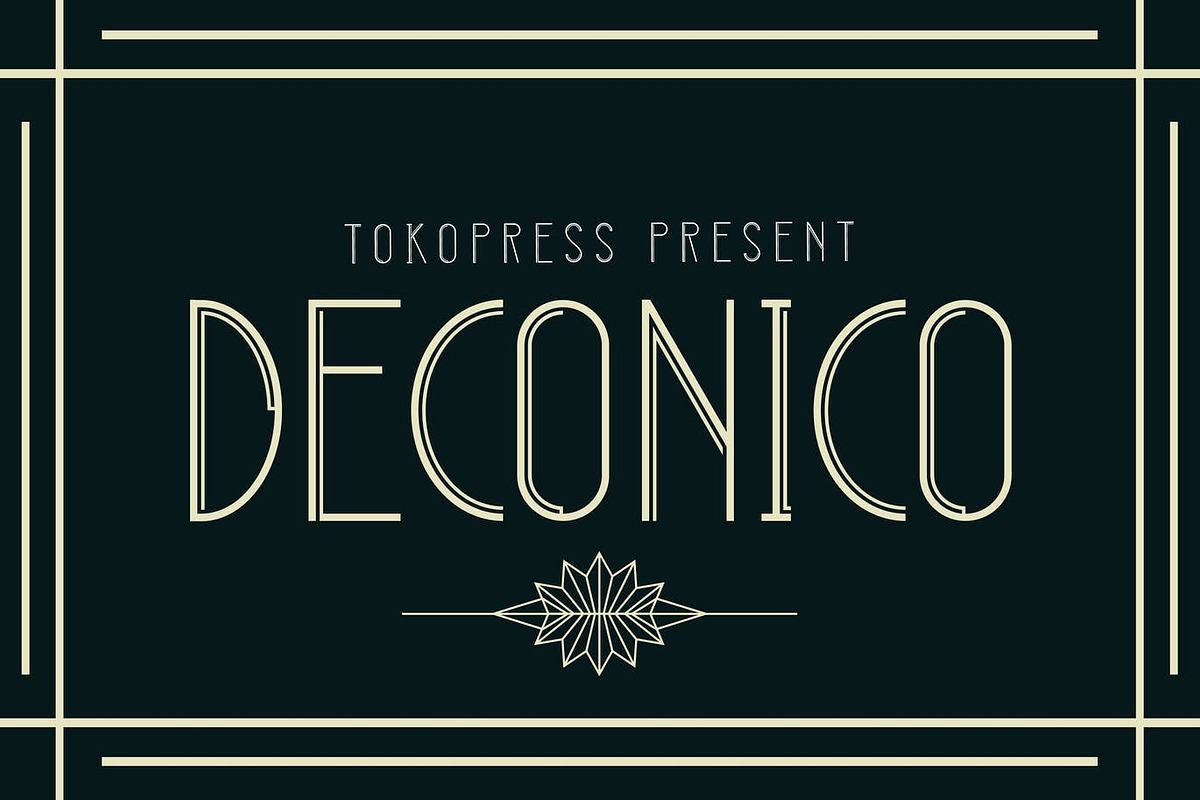
DECONICO - Art Deco Font Free Download
DECONICO - Art Deco Font Free Download is a luxurious and stylish typeface inspired by the timeless elegance of the Art Deco era. Please note: you must purchase this font for commercial use, but you can test it through a free download. With its geometric shapes, sleek lines, and vintage sophistication, DECONICO is perfect for branding, invitations, logos, packaging, and editorial projects that call for a touch of Gatsby-era glamour.
This font exudes refinement and charm, making it ideal for both modern and retro-inspired designs. Whether you're creating a high-end fashion label or a classy event invitation, DECONICO - Art Deco Font Free Download offers the perfect blend of nostalgia and modernity. It works seamlessly with design software like Adobe Illustrator, Photoshop, and Canva. Download it now for personal use and bring a golden-age feel to your next creative project with the elegance of DECONICO.